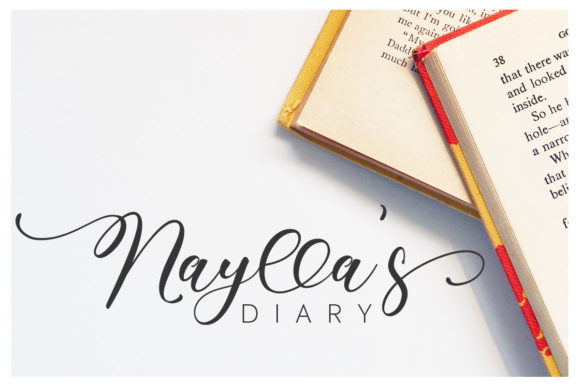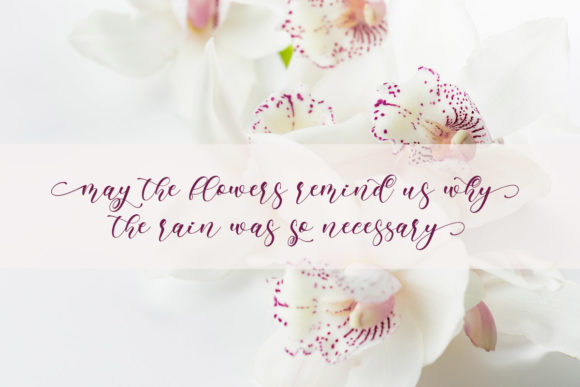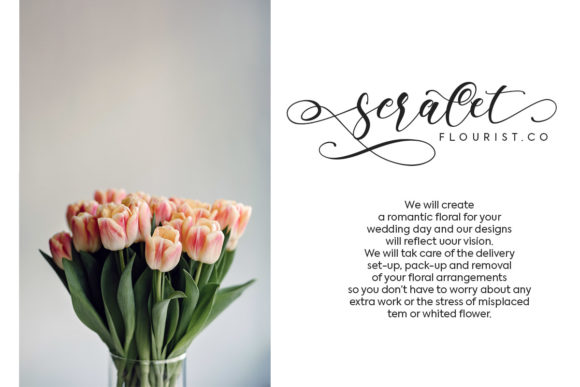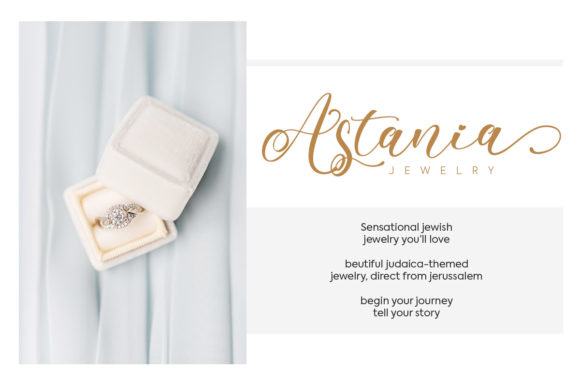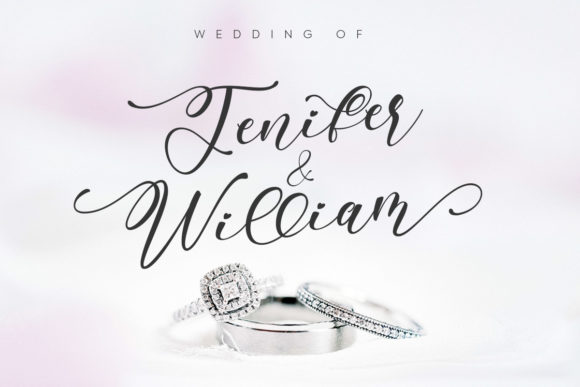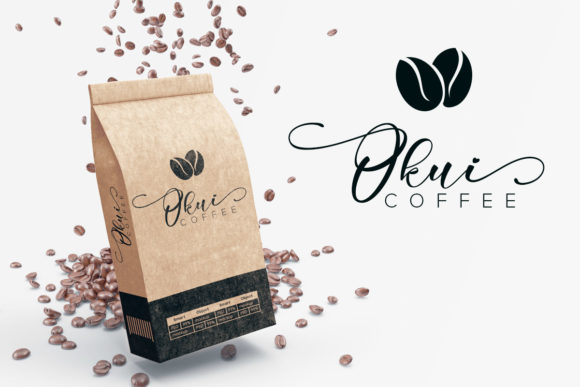
Introduction to Marthiya Font
Have you ever stumbled upon a font that instantly makes you want to create? For designers, finding the perfect font can be a game-changer. It’s like discovering a hidden treasure that sparks a new idea and sets your creative project on fire. This is exactly what happens when you lay eyes on the beautiful Marthiya Font.
With its soft, hand-lettered style, Marthiya Font is a design resource that’s hard to resist. Whether you’re working on a wedding invitation, creating social media posts, or designing greeting cards, this font is sure to add a touch of elegance and sophistication. Plus, with a transparent background, you can easily layer it over other design elements to create a high-quality look that’s truly unique.
Key Features of Marthiya Font
- High-quality design resource ideal for creative projects requiring elegant and sophisticated typography.
- Unique characteristics: intricate details, ornate flourishes, and a classic, timeless aesthetic.
- Perfect for designers seeking a high-quality, free design resource to elevate their creative project.
Honest Review: Marthiya Font
I recently stumbled upon the Marthiya Font while searching for a unique design resource to elevate my creative project. I was excited to give it a try and see how it would perform.
- High-quality design: The Marthiya Font is well-crafted and offers a clean, modern aesthetic that’s perfect for a variety of design applications.
- Limited character set: The Marthiya Font only includes a limited character set, which may not be sufficient for more extensive design projects.
- Not ideal for body text: While the font works well for headings and titles, it may not be the best choice for body text due to its minimalist style.
Overall, I’m impressed with the Marthiya Font’s potential as a design resource. While it may have some limitations, it’s a great option for designers looking for a high-quality, free font to add some flair to their creative projects.
Tips for Getting the Most Out of Marthiya Font
Experiment with different font sizes, colors, and arrangements to achieve a unique look. Combine Marthiya Font with other design elements to create visually appealing graphics.
Marthiya Font is perfect for:
- Creative projects, such as posters, flyers, and brochures.
- Branding and marketing materials, including logos and business cards.
- Presentations and documents, where a professional and modern look is desired.